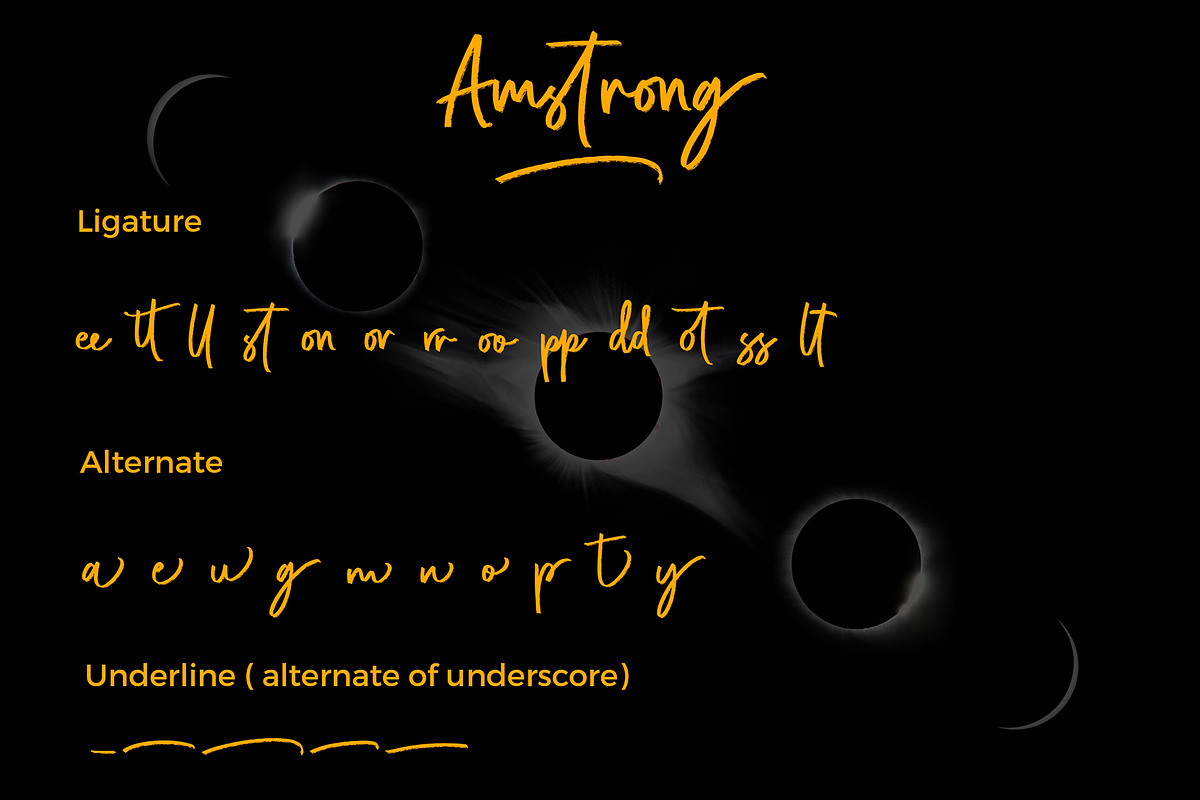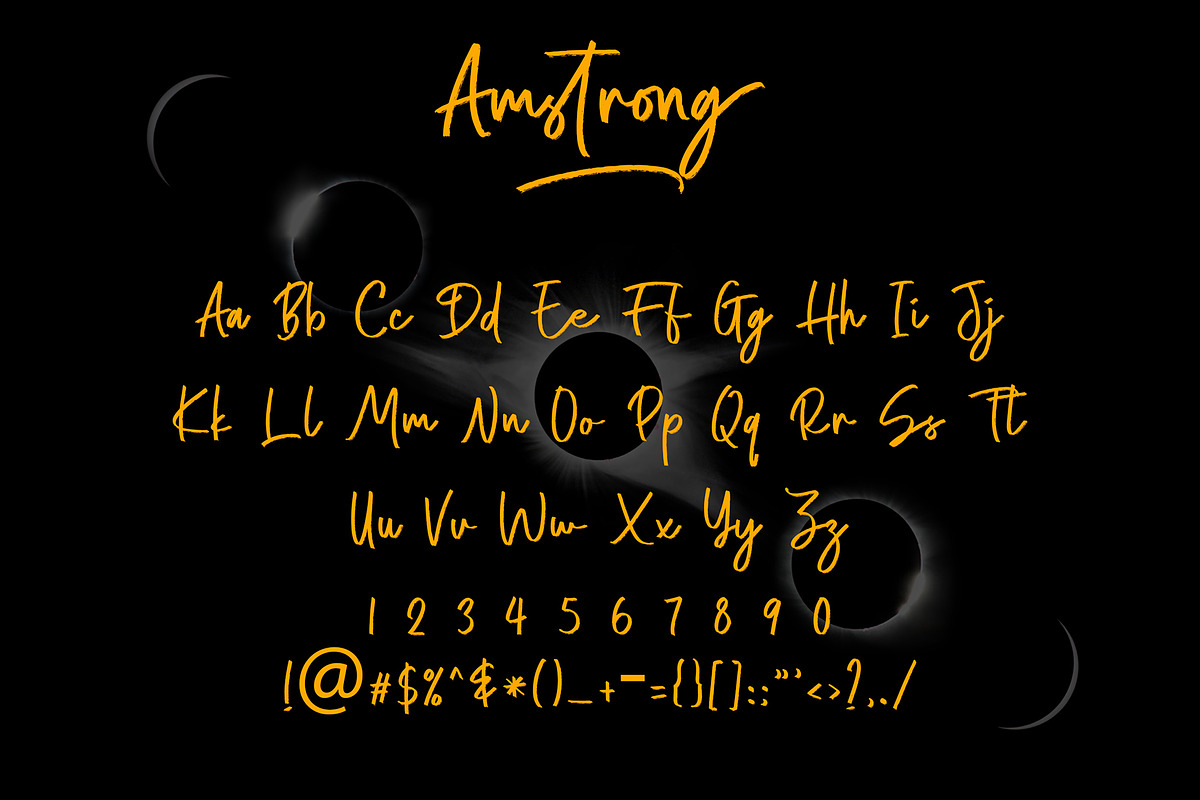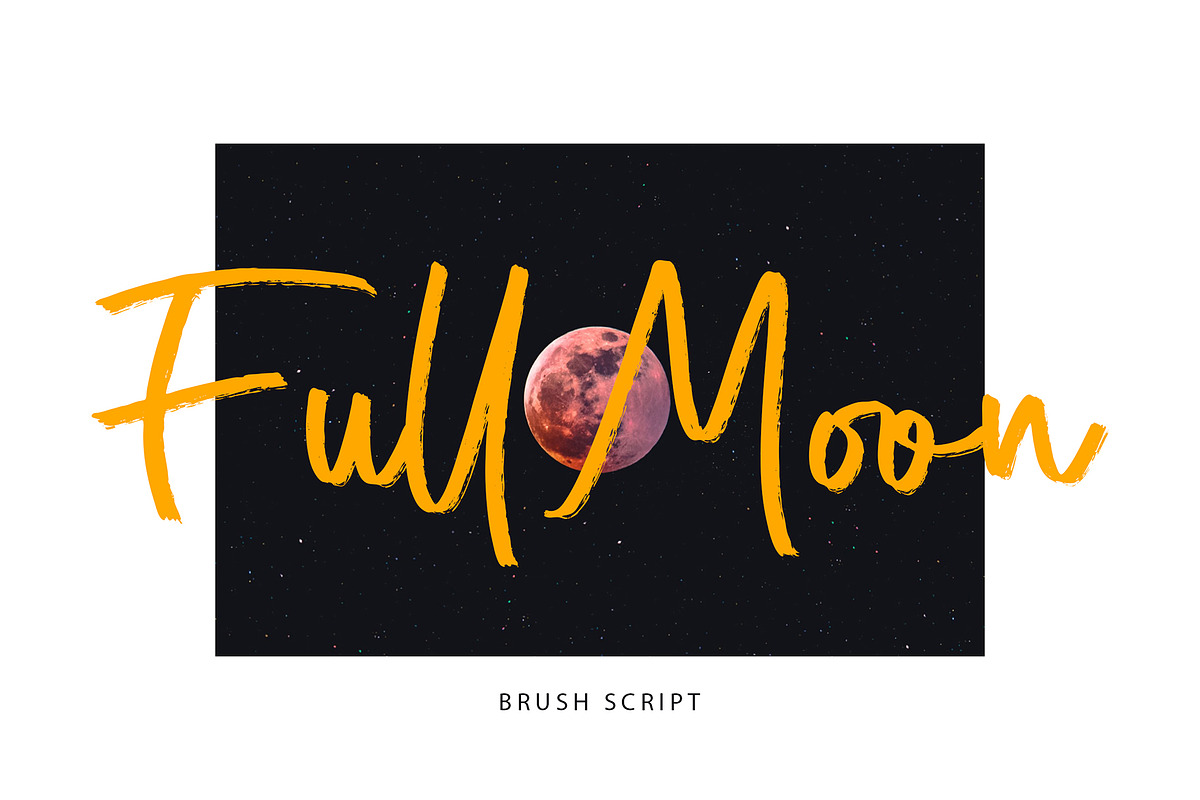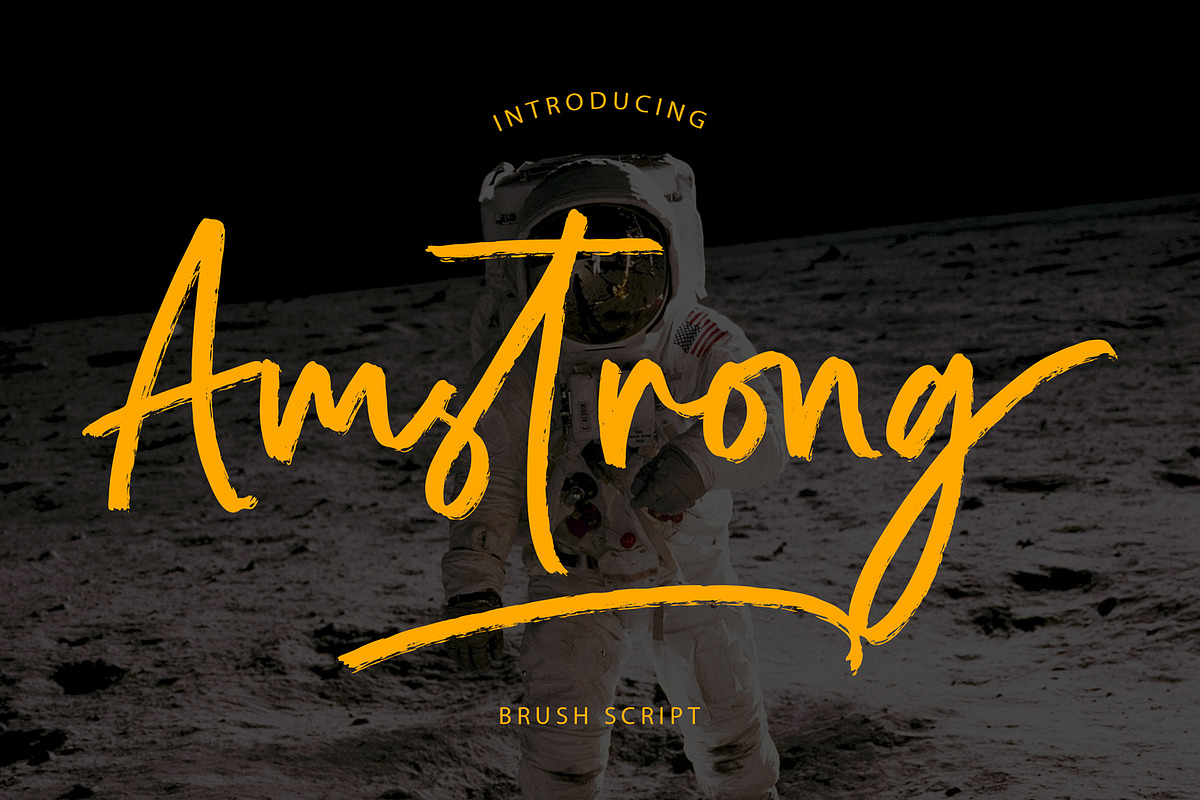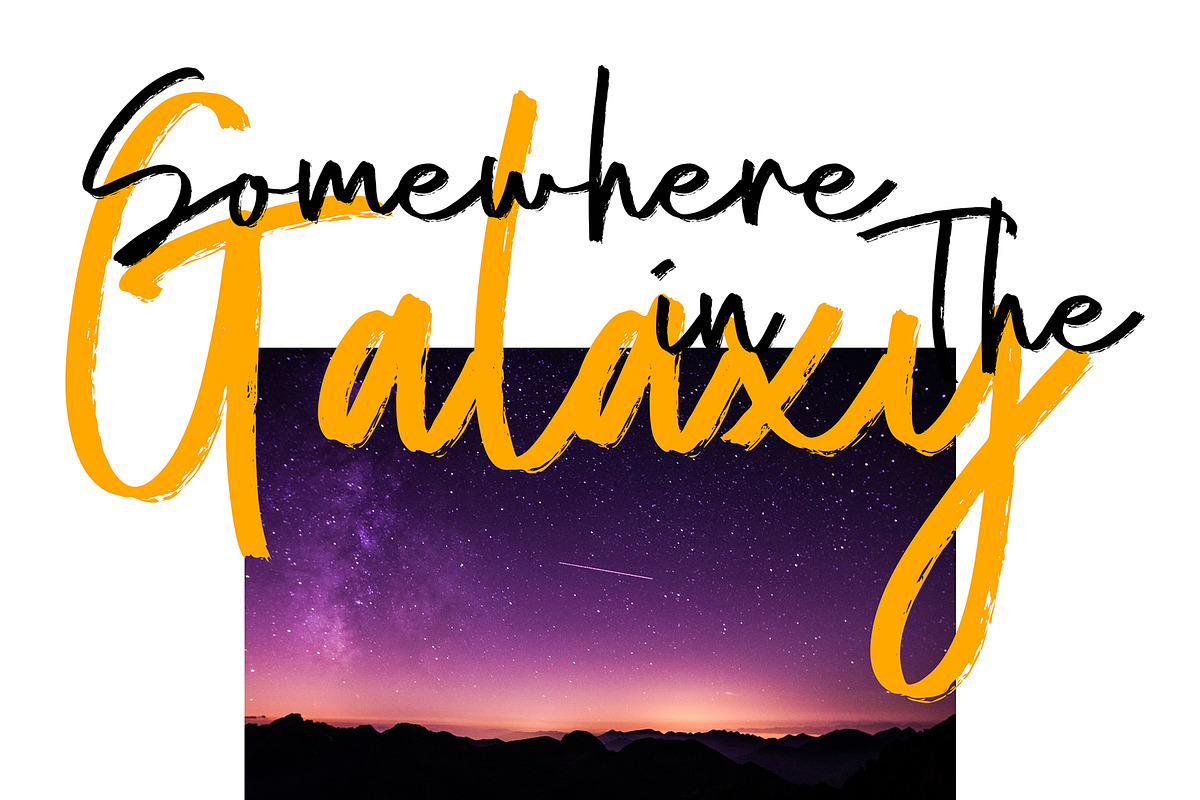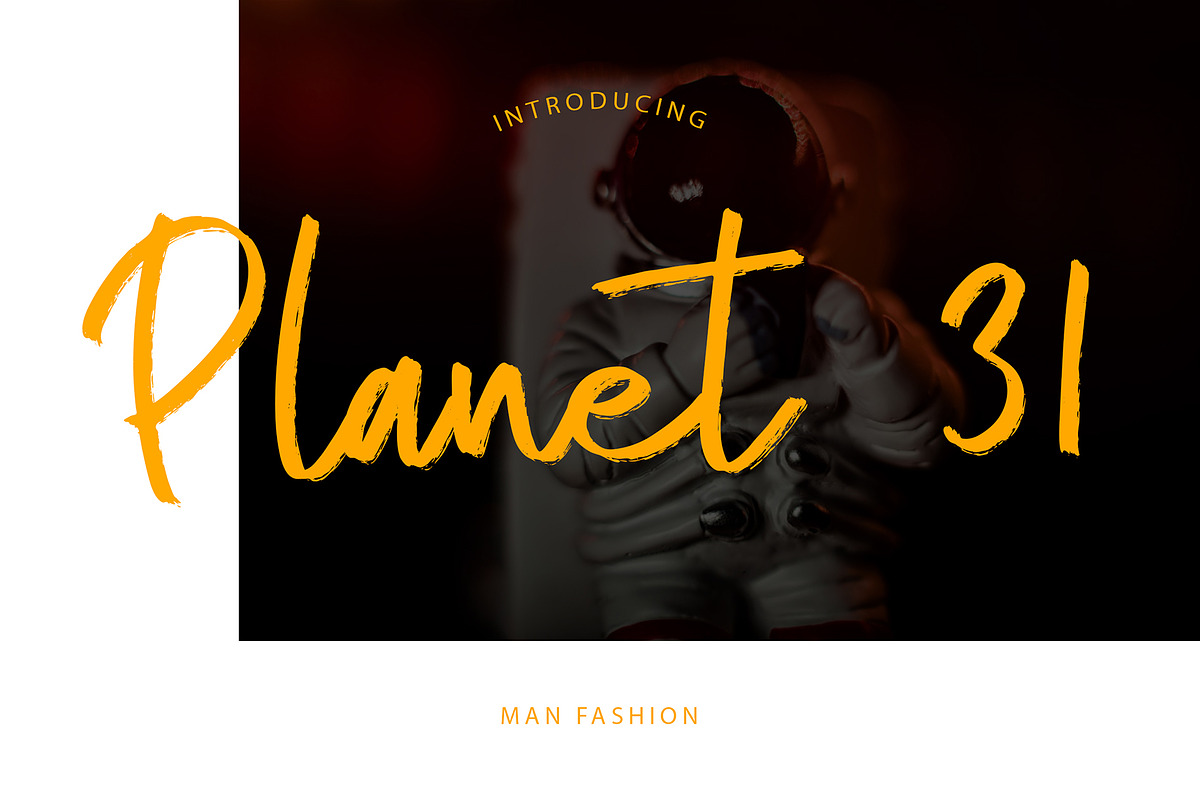
Amstrong Beautiful Brush Font
Amstrong is a beautiful brush font can make your text appear elegant, luxurious, and modern!
Amstrong is perfect for branding projects, logo, wedding designs, social media posts, advertisements, product packaging, tshirt design, product designs, label, photography, watermark, invitation, stationery and any projects.
Amstrong Beautiful Brush Font by Formatika Studio fits naturally into Branding, posters, packaging, typography.